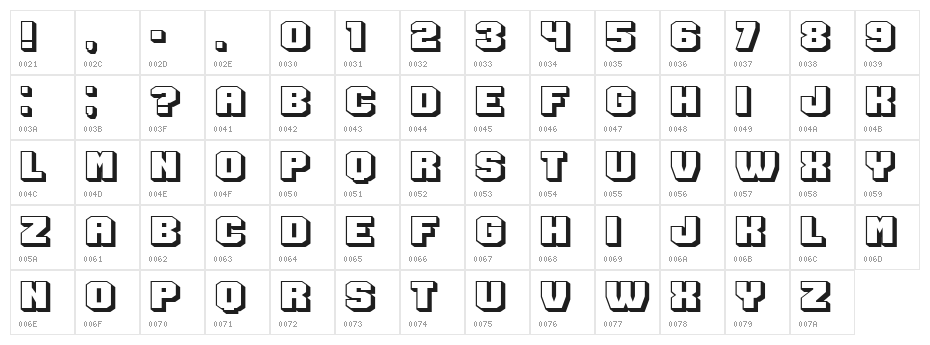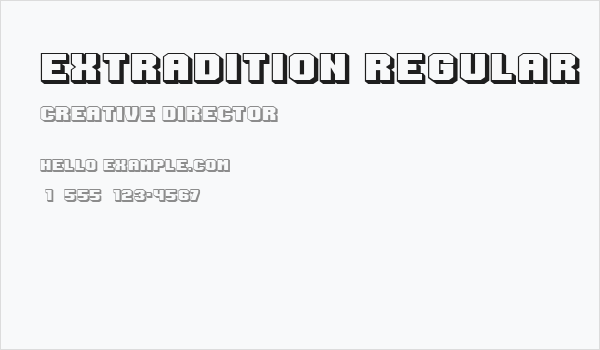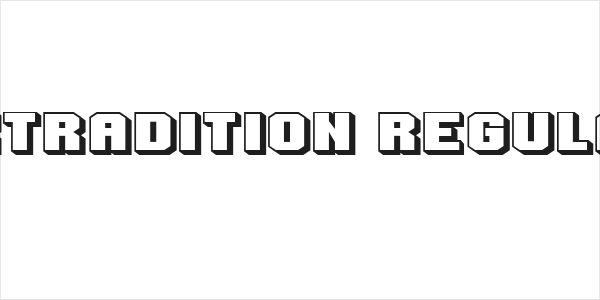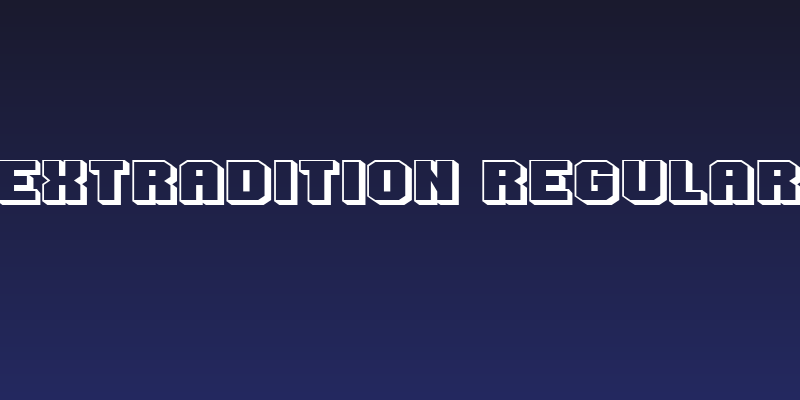
Extradition Regular Font
Extradition Regular Description
This font features a bold, three-dimensional block style with a distinct shadow effect that gives it a strong, impactful appearance. The characters are uppercase and have a uniform thickness, creating a cohesive and structured look. The geometric design and sharp edges contribute to its modern and industrial feel, making it suitable for attention-grabbing headlines and titles. The numbers and punctuation marks follow the same bold and shadowed style, ensuring consistency across all characters.
| Proposed Projects | Ideal for posters, logos, video game graphics, and any project requiring a bold, standout typeface. |